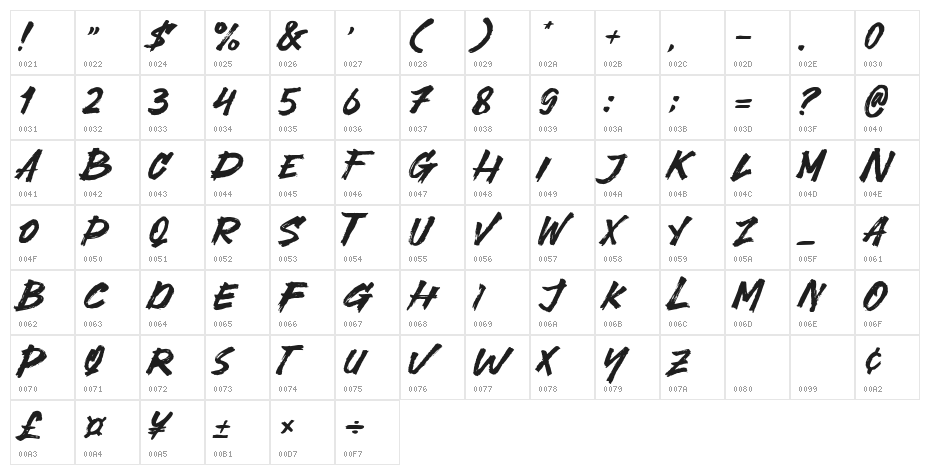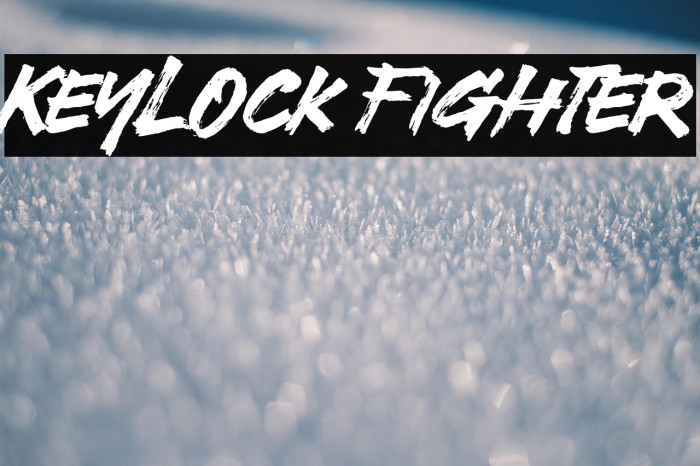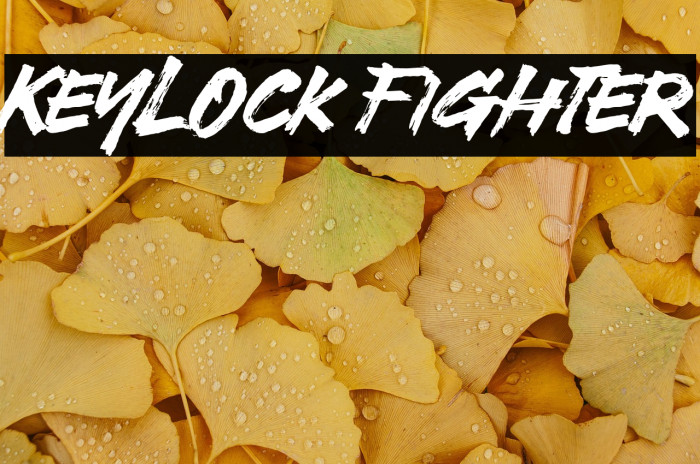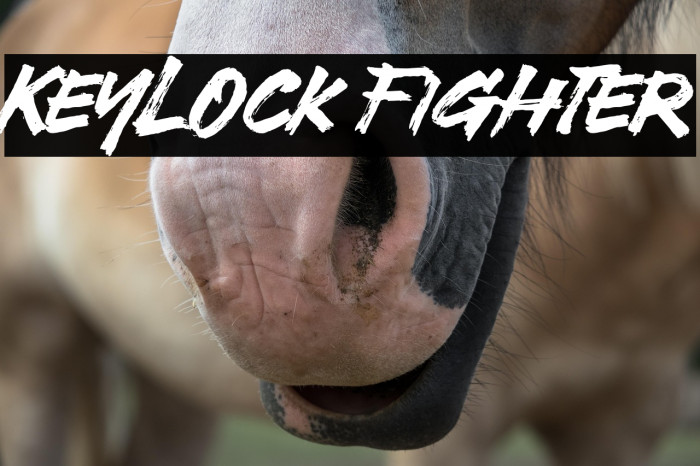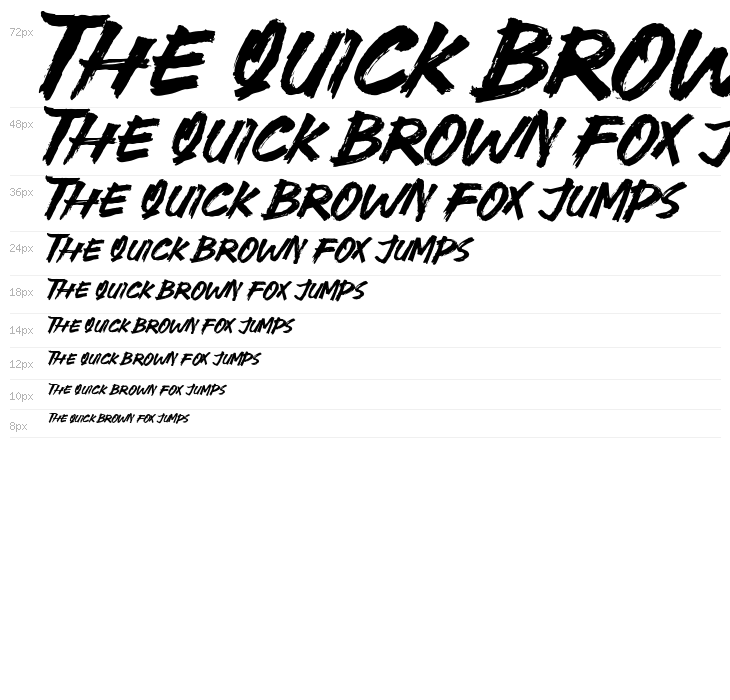
Keylock Fighter Font
Keylock Fighter Description
This font exudes a bold and dynamic energy, characterized by its brush-like strokes and expressive style. The letters are crafted with a sense of movement and spontaneity, giving it a hand-painted appearance. The uppercase and lowercase letters maintain a consistent style, with thick strokes and slightly irregular edges that add to its raw and artistic feel. Numbers and special characters follow the same aesthetic, ensuring a cohesive look across all elements. This font is ideal for projects that require a strong visual impact and a touch of creativity.
| Proposed Projects | Ideal for posters, album covers, branding, and any project needing a bold artistic touch. |